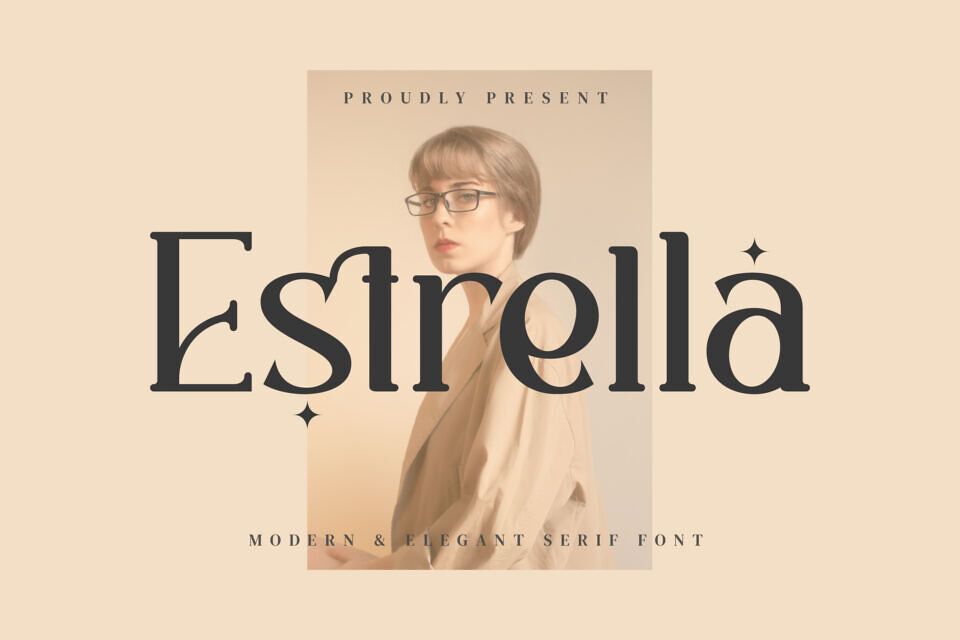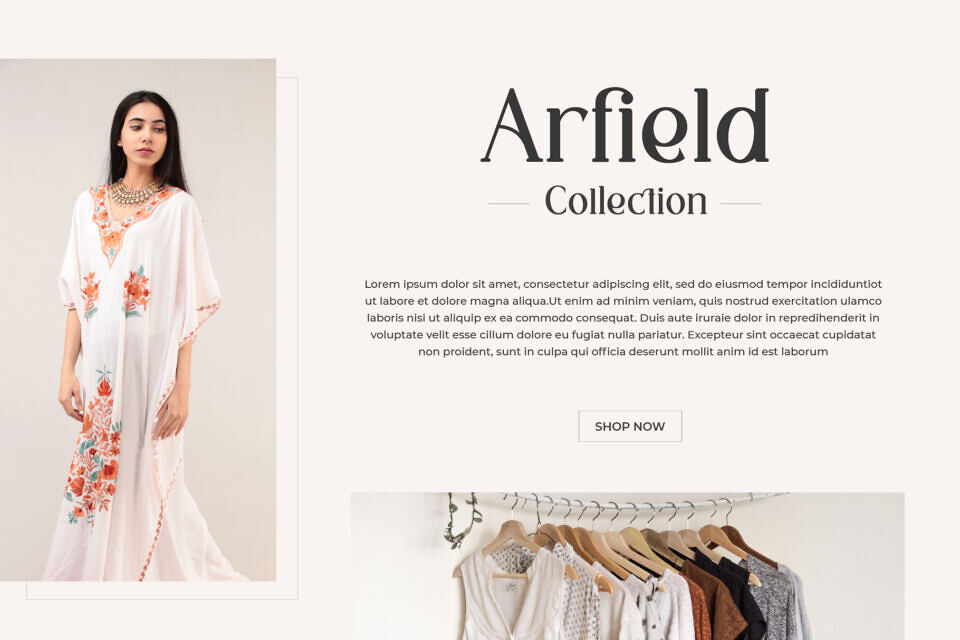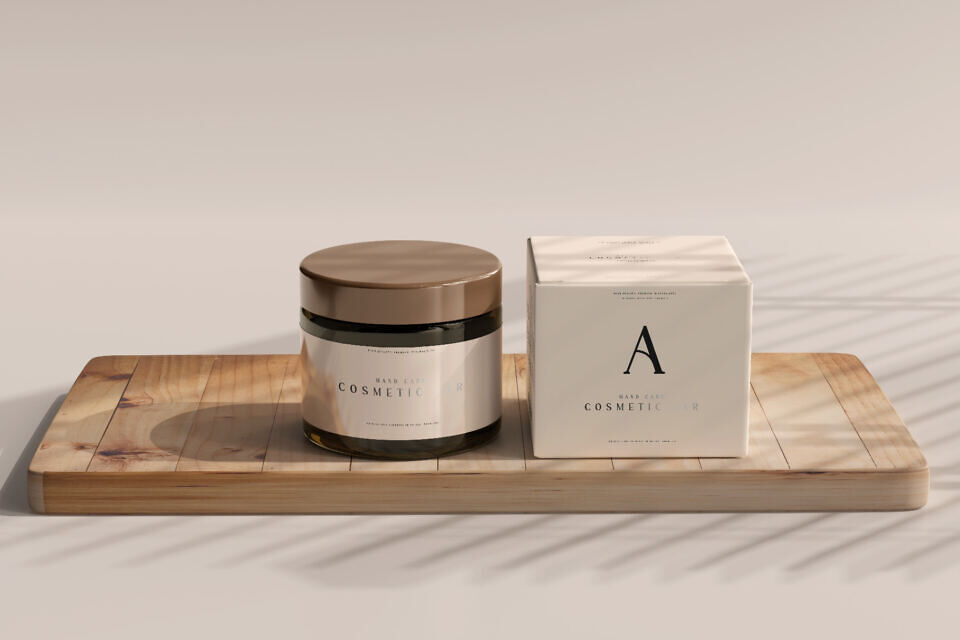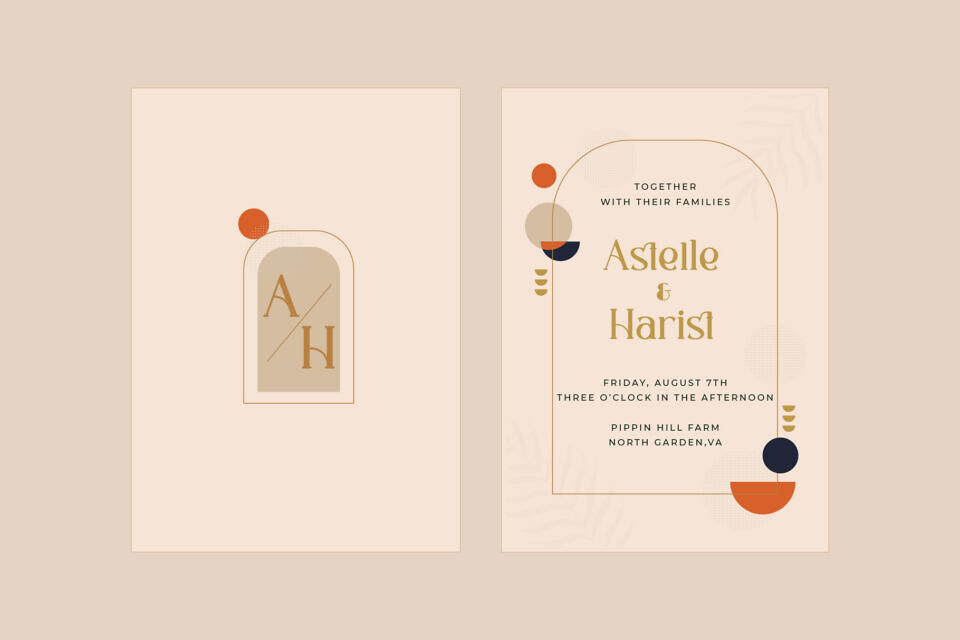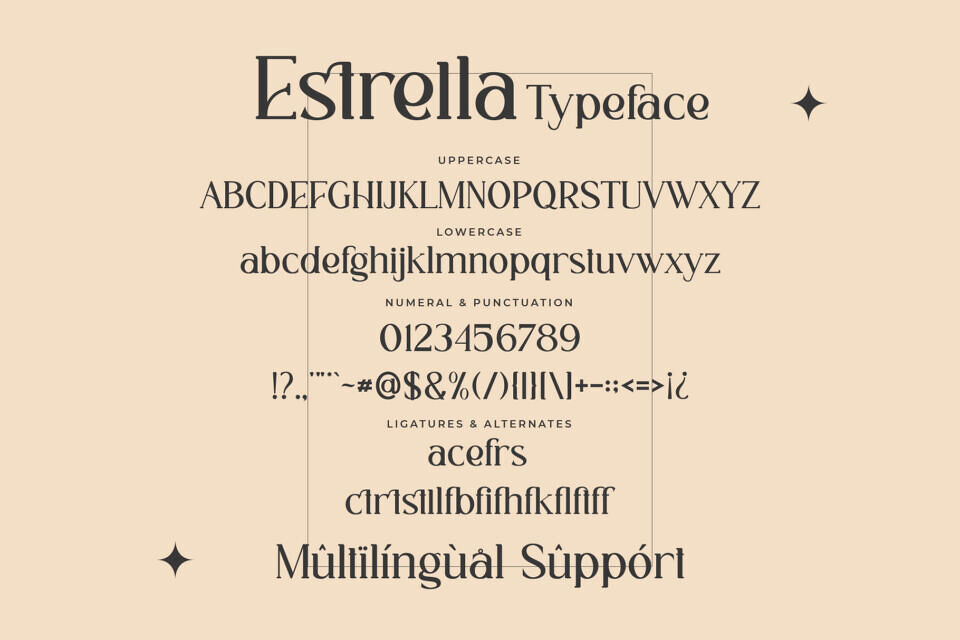
Estrella Font
Estrella is a modern and elegant serif font. No matter the topic, this font will be an incredible asset to your fonts’ library, as it has the potential to elevate any creation.